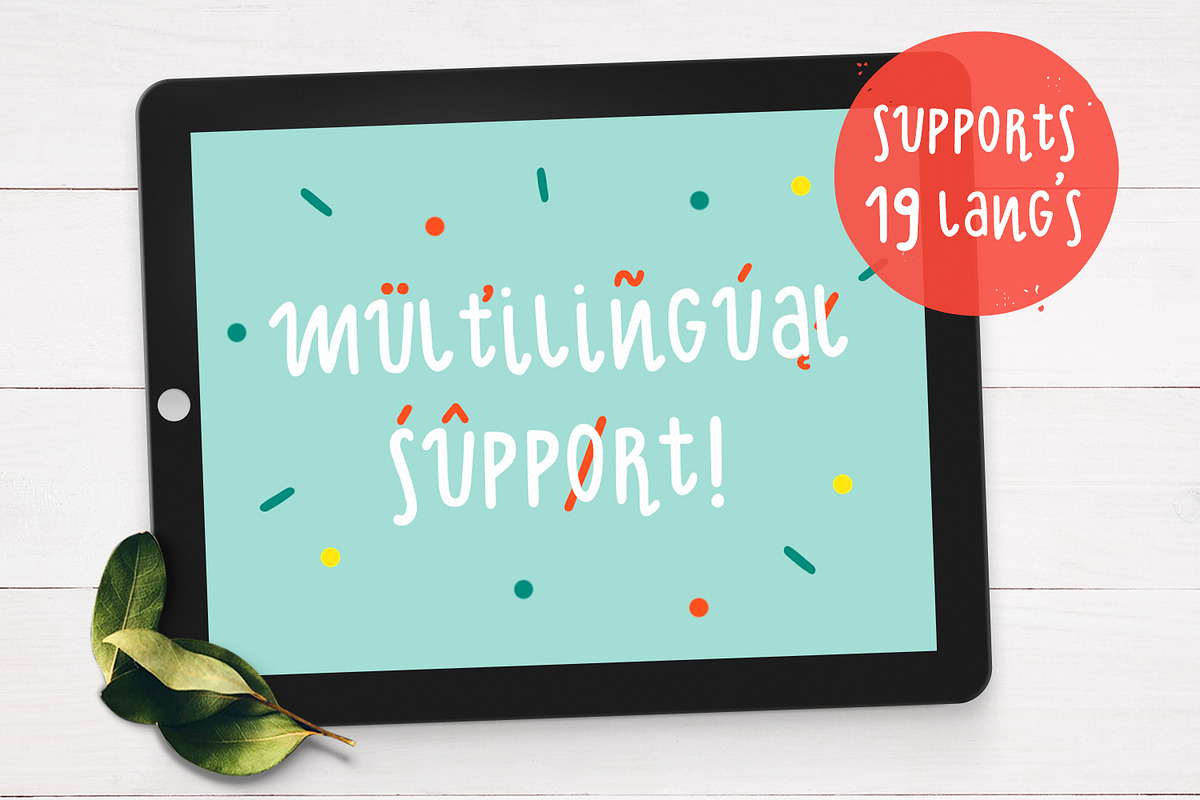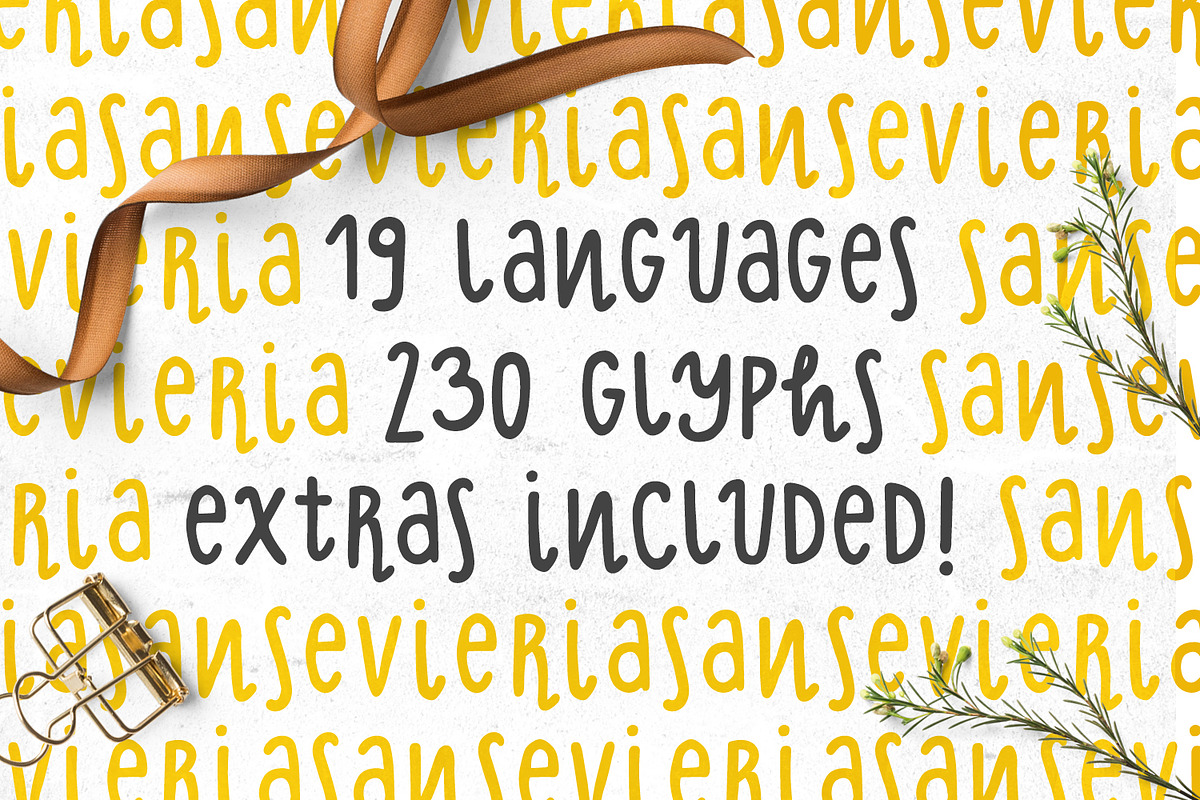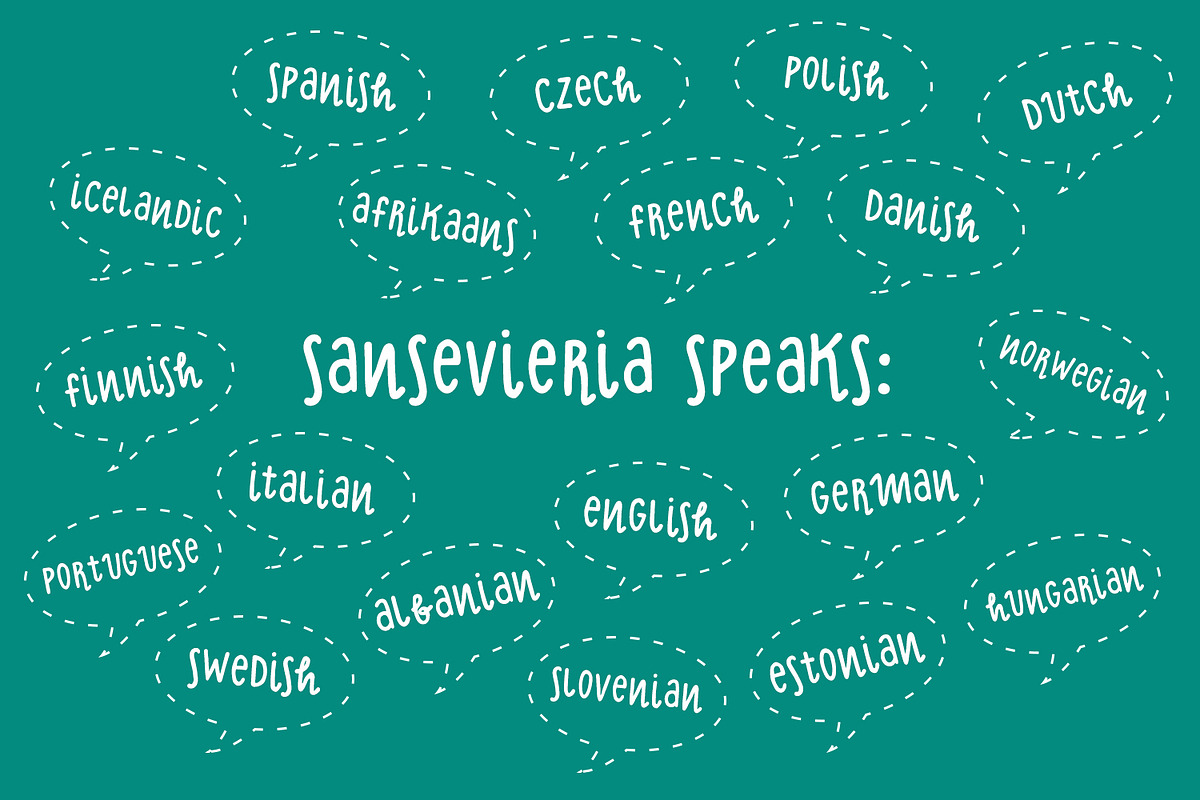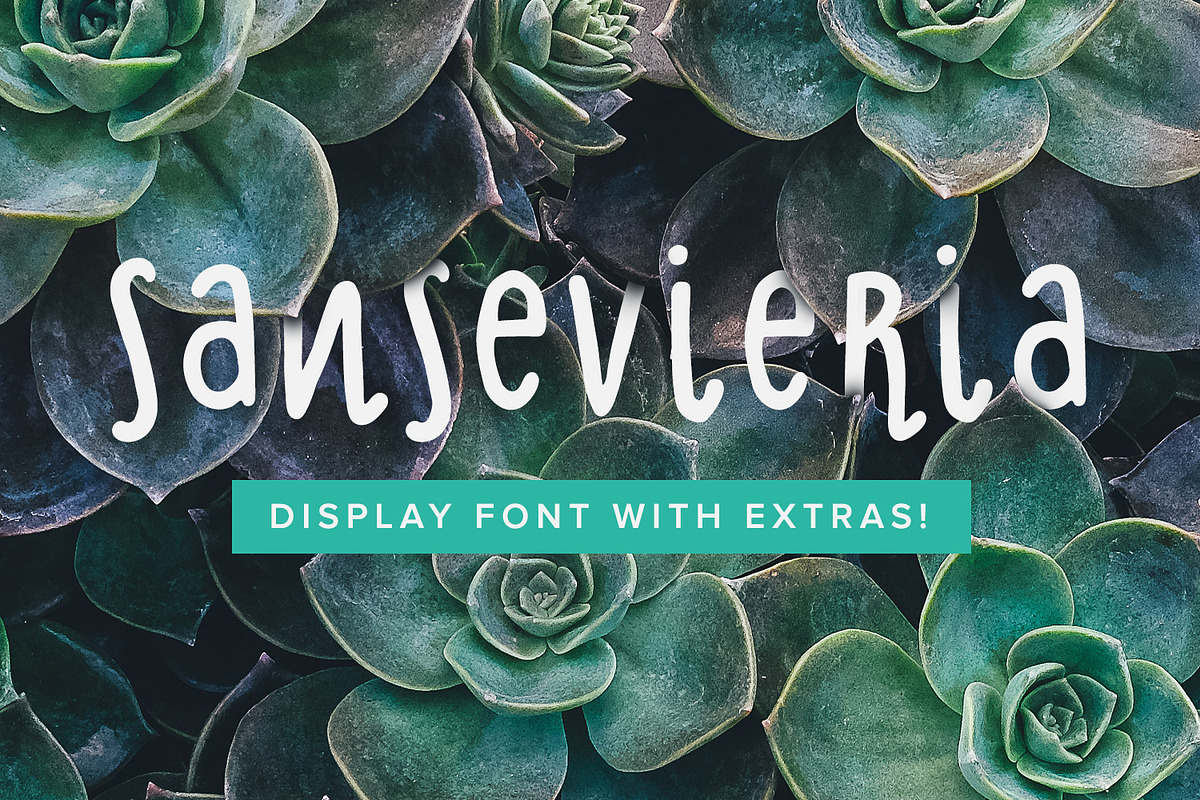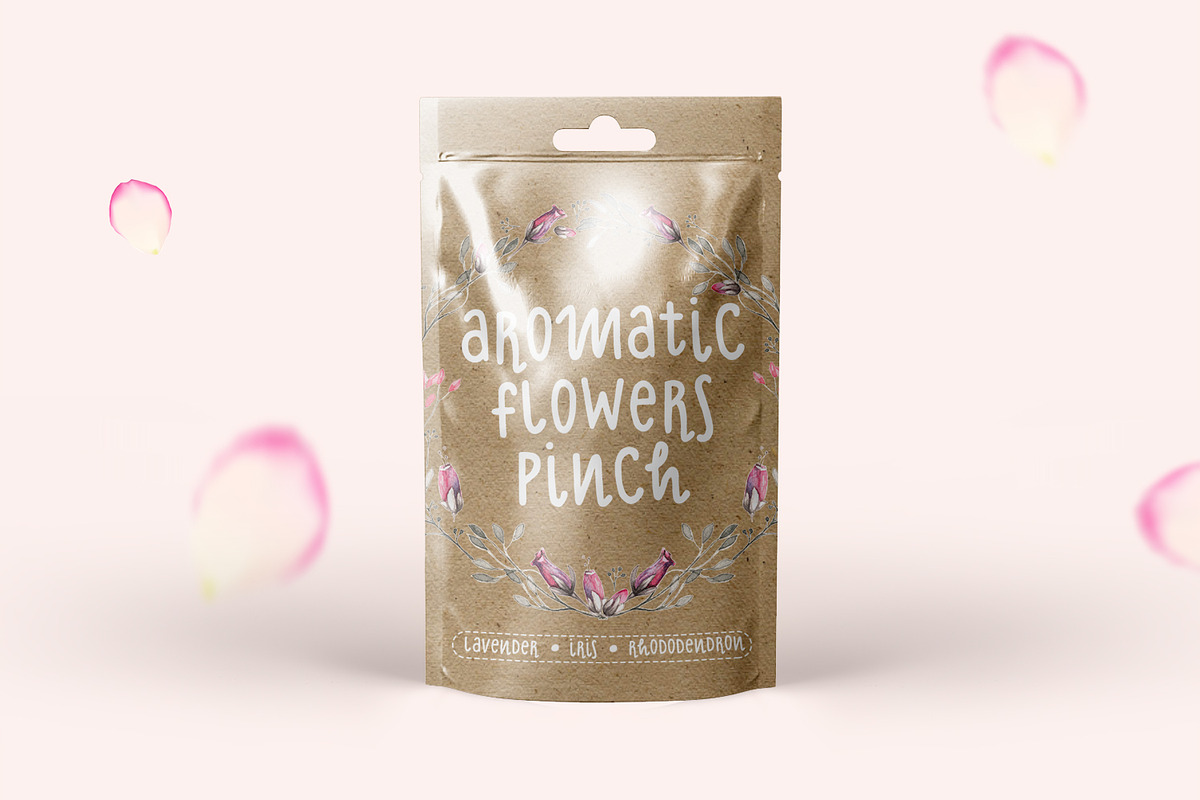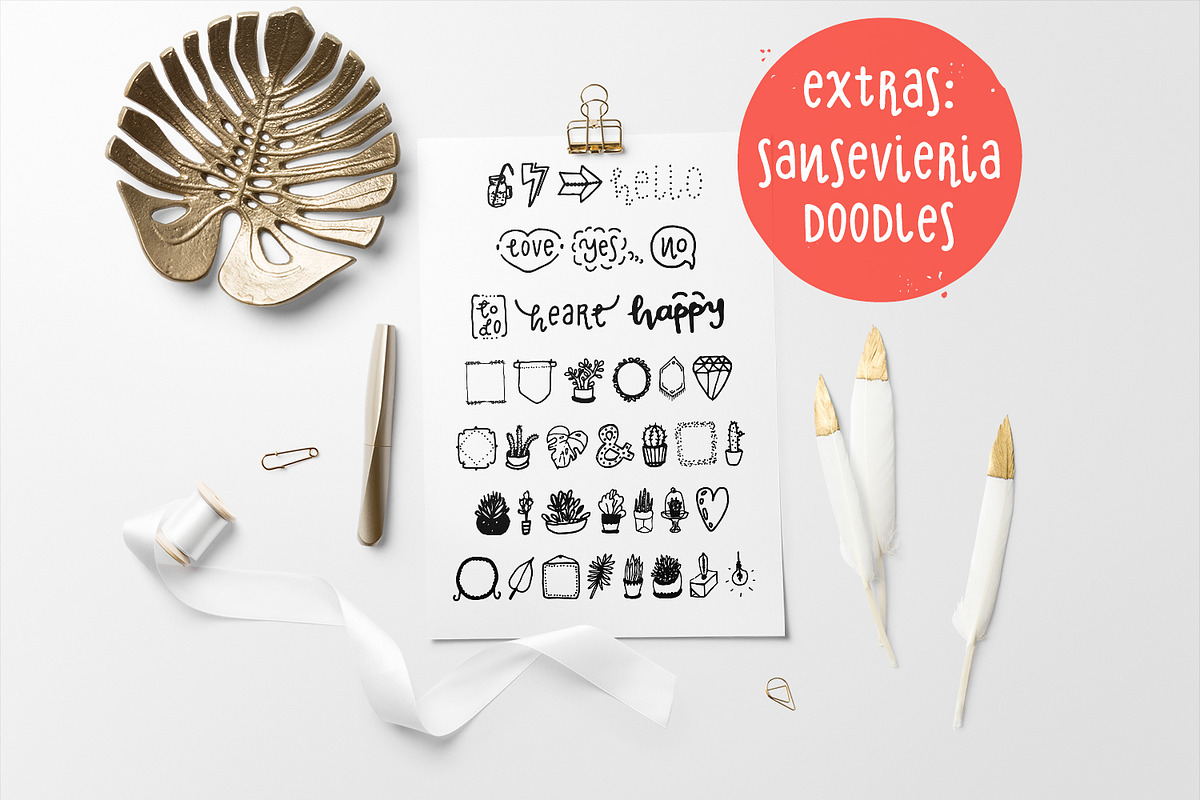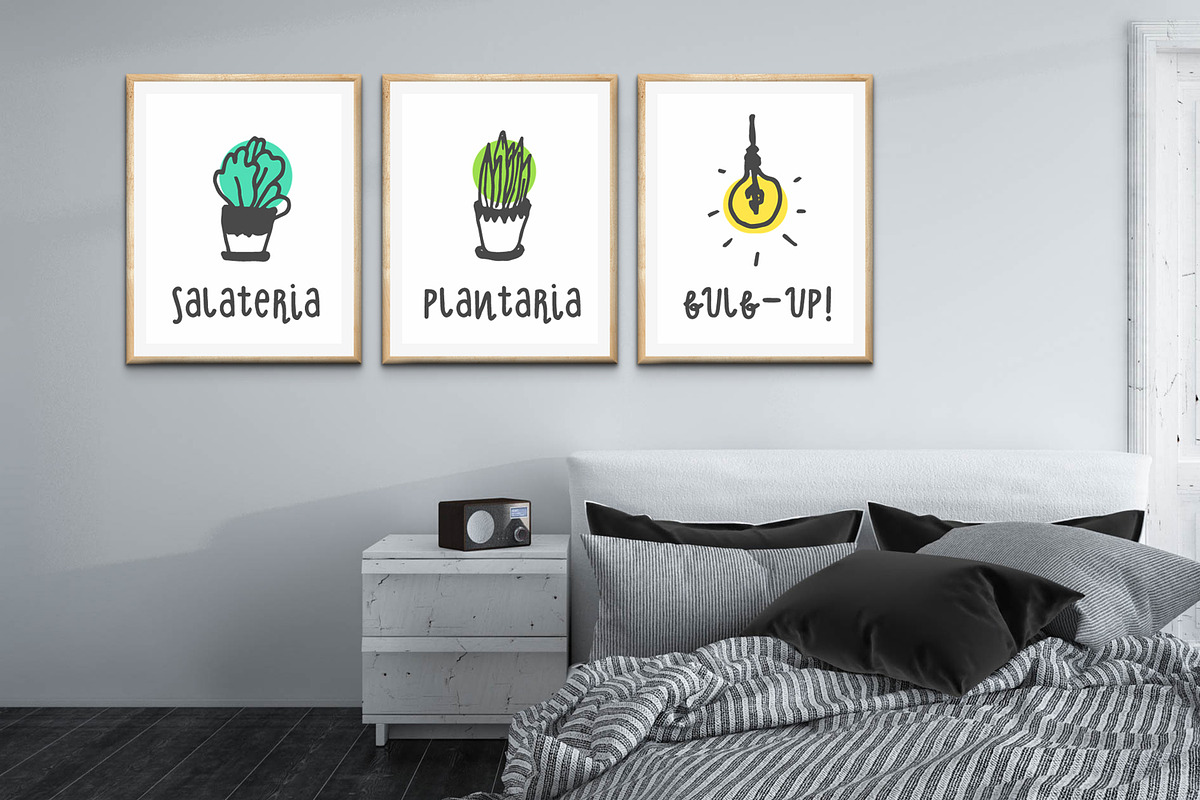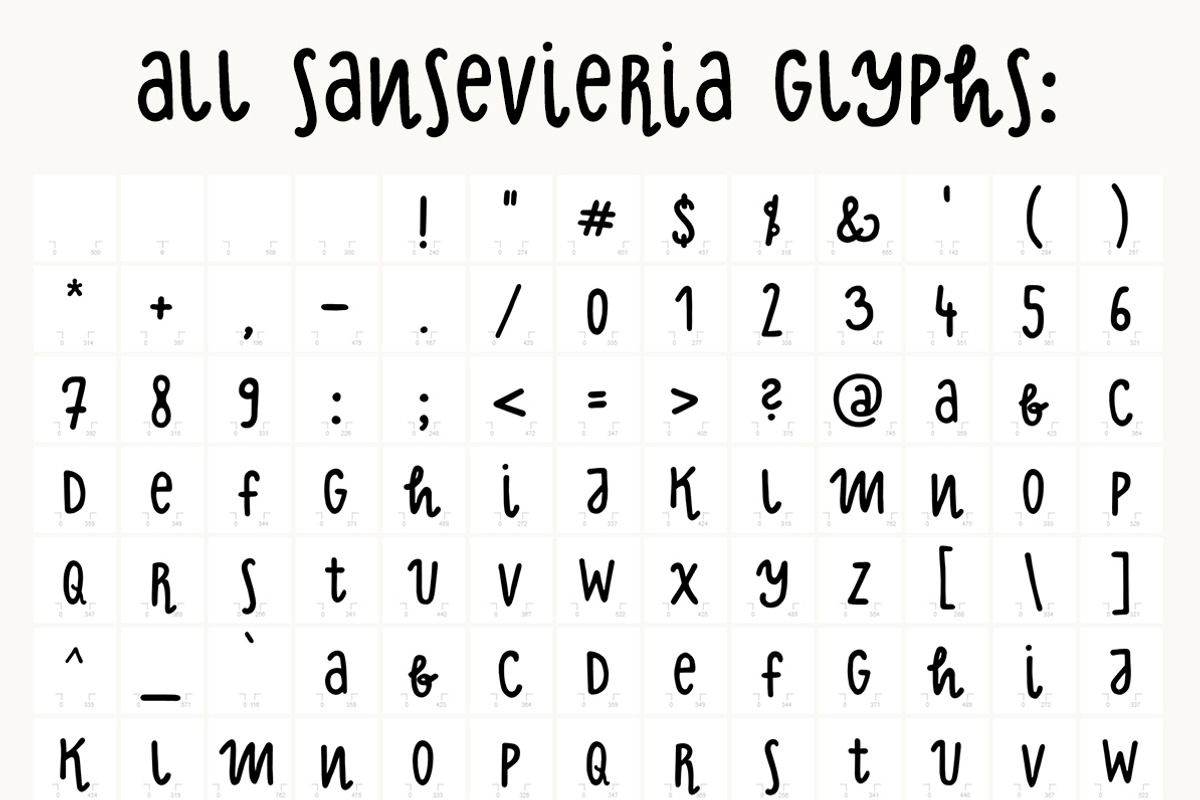
Sansevieria Display Font + Extras
Sansevieria Display Font is mixed caps and lowercase hand-drawn font with extras included (as a separate 'doodles' font). This sans-serif is a great choice for your cards, illustrations, packaging, websites and all other stuff with personal, hand-drawn touch. Works great when pairing with simple sans-serif fonts.
Sansevieria supports 19 languages: Afrikaans, Albanian, Czech, Danish, Dutch, English, Estonian, Finnish, French, German, Hungarian, Icelandic, Italian, Norwegian, Polish, Portugese, Slovenian, Spanish, Swedish. It has 230 glyphs total (see the last screenshot for the full glyphs list).